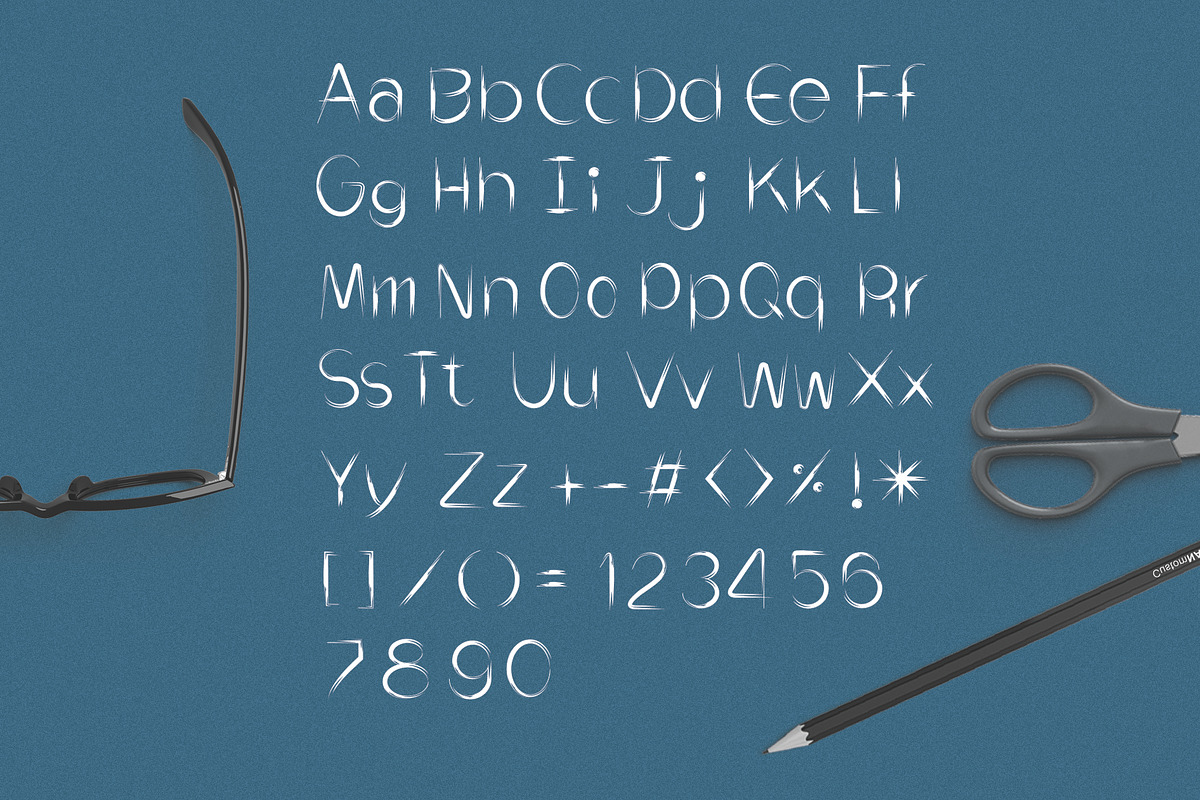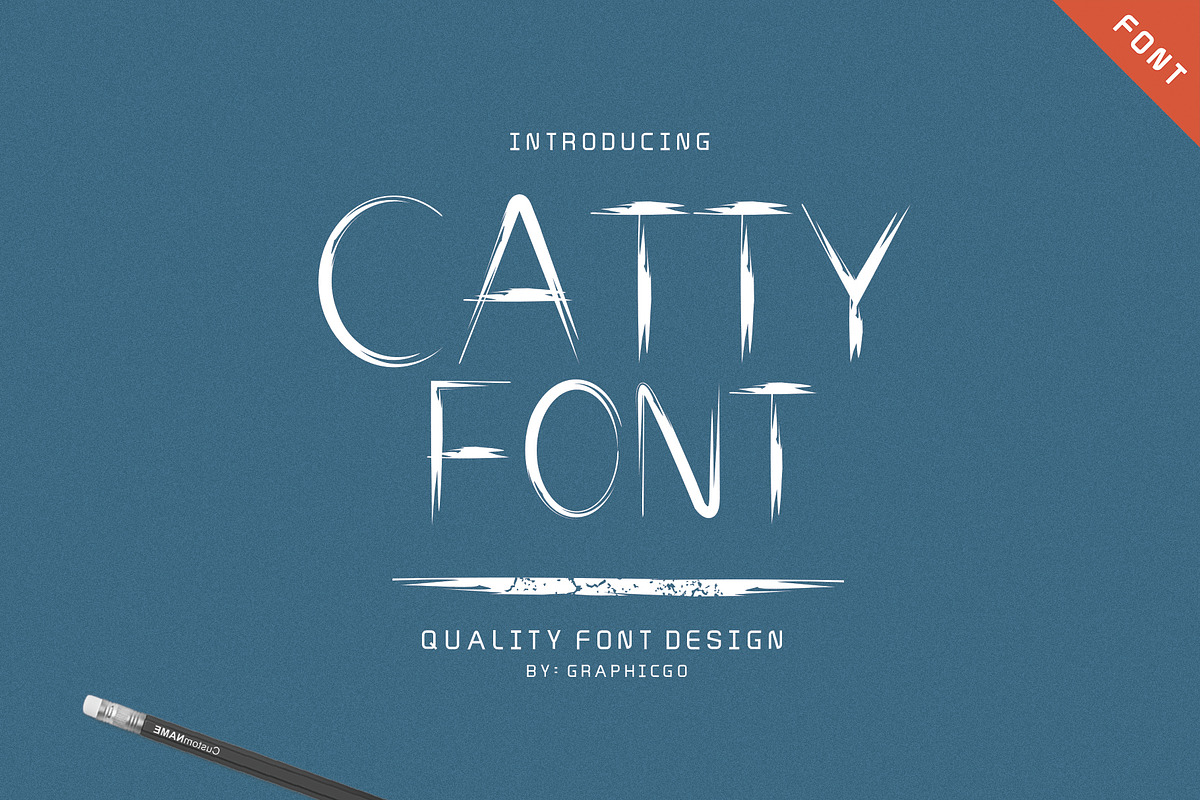
Catty Font
Hello : ) Catty Font is a combination hand drawn and brush line which look like scratches of the cat. It comes with
Uppercase and Lowercase
Why Catty Font is worth a look
Catty Font by Graphicgo fits naturally into Branding, posters, packaging, typography.